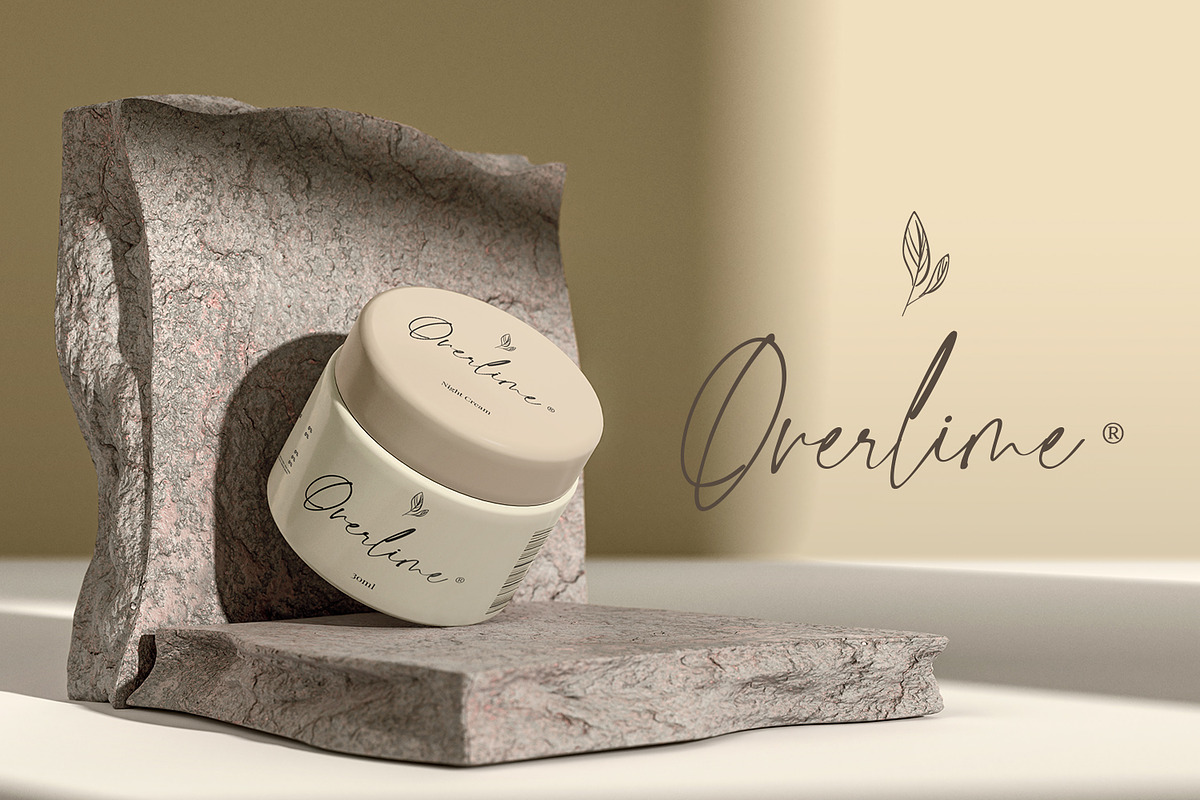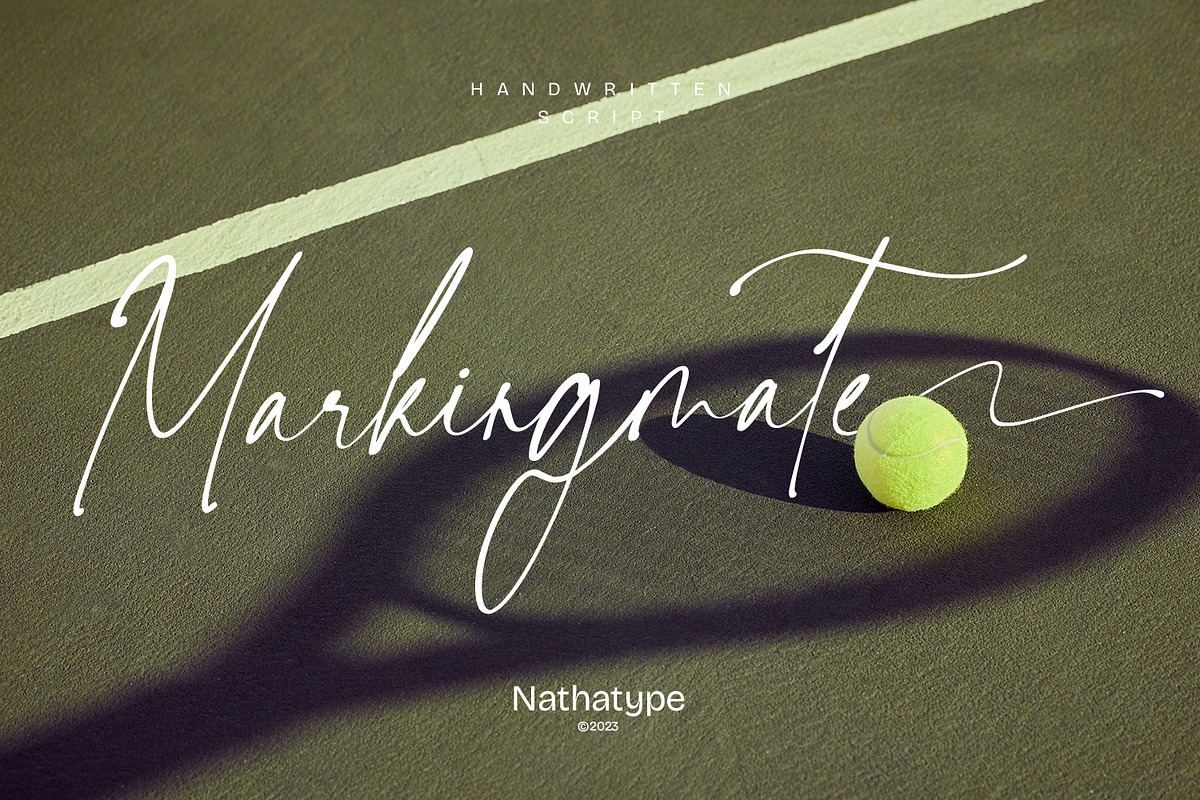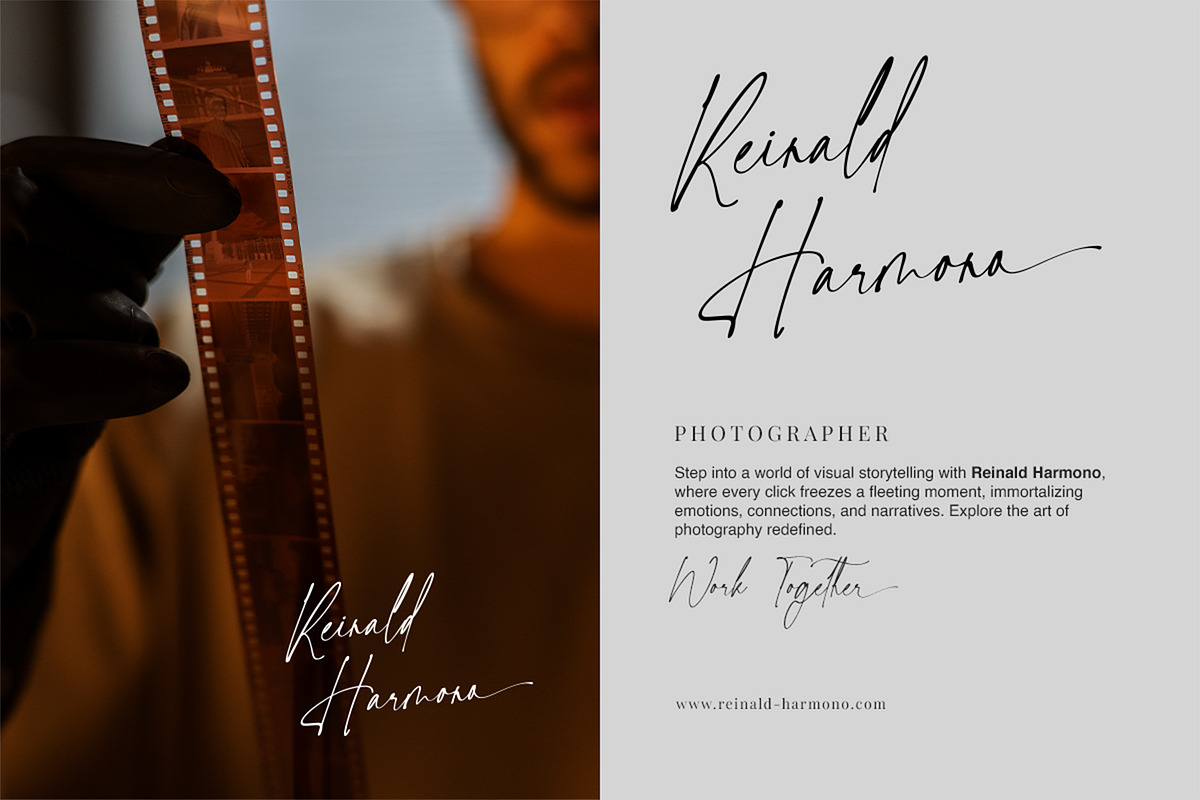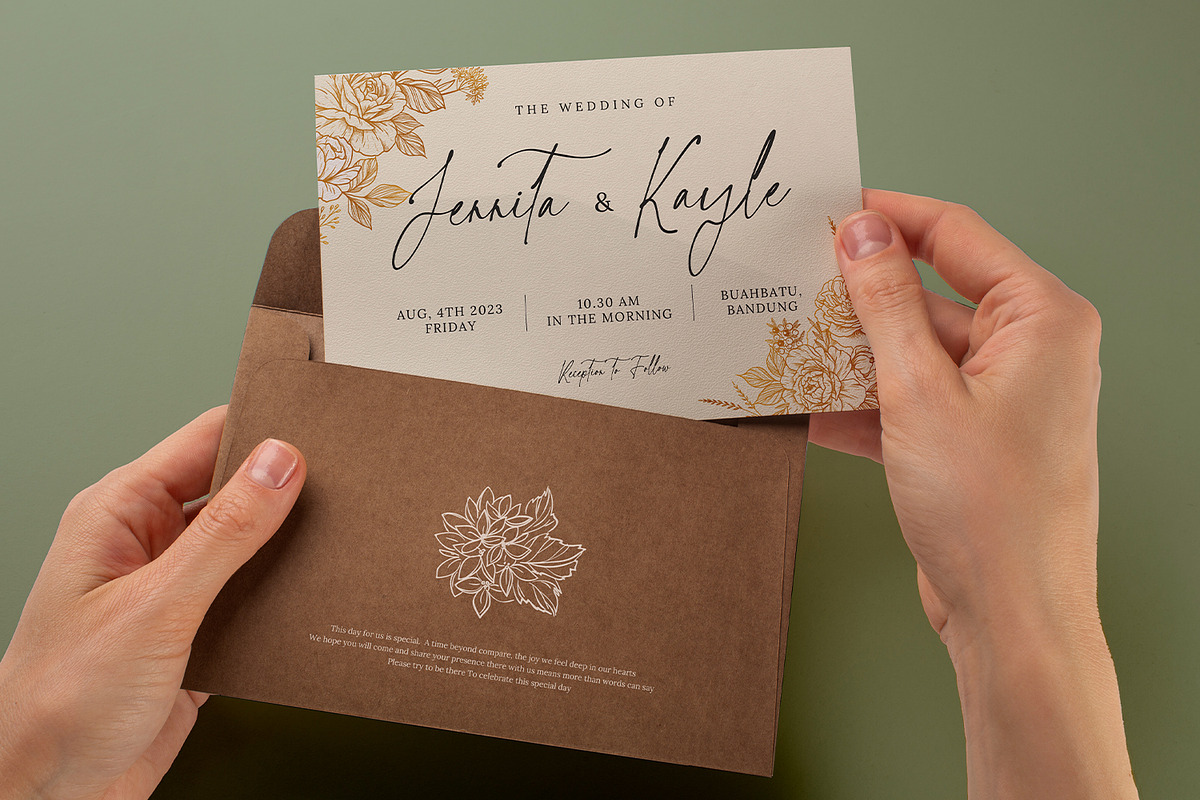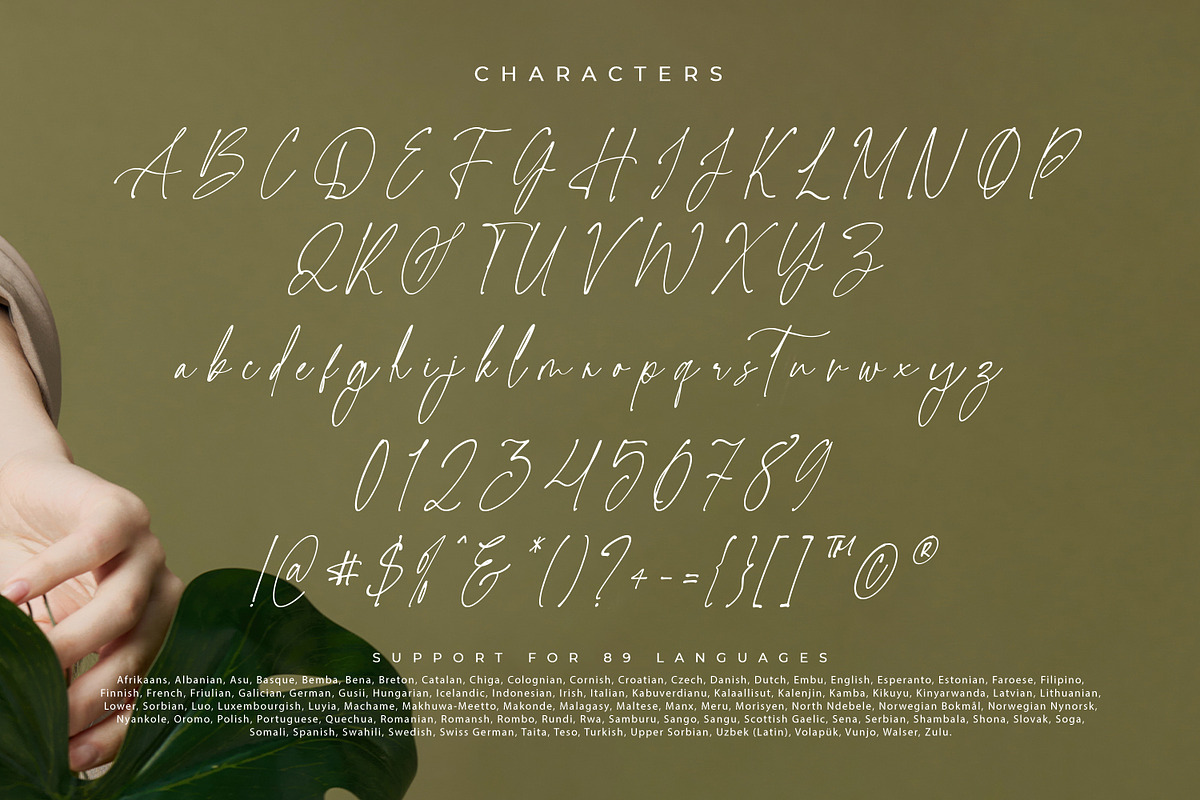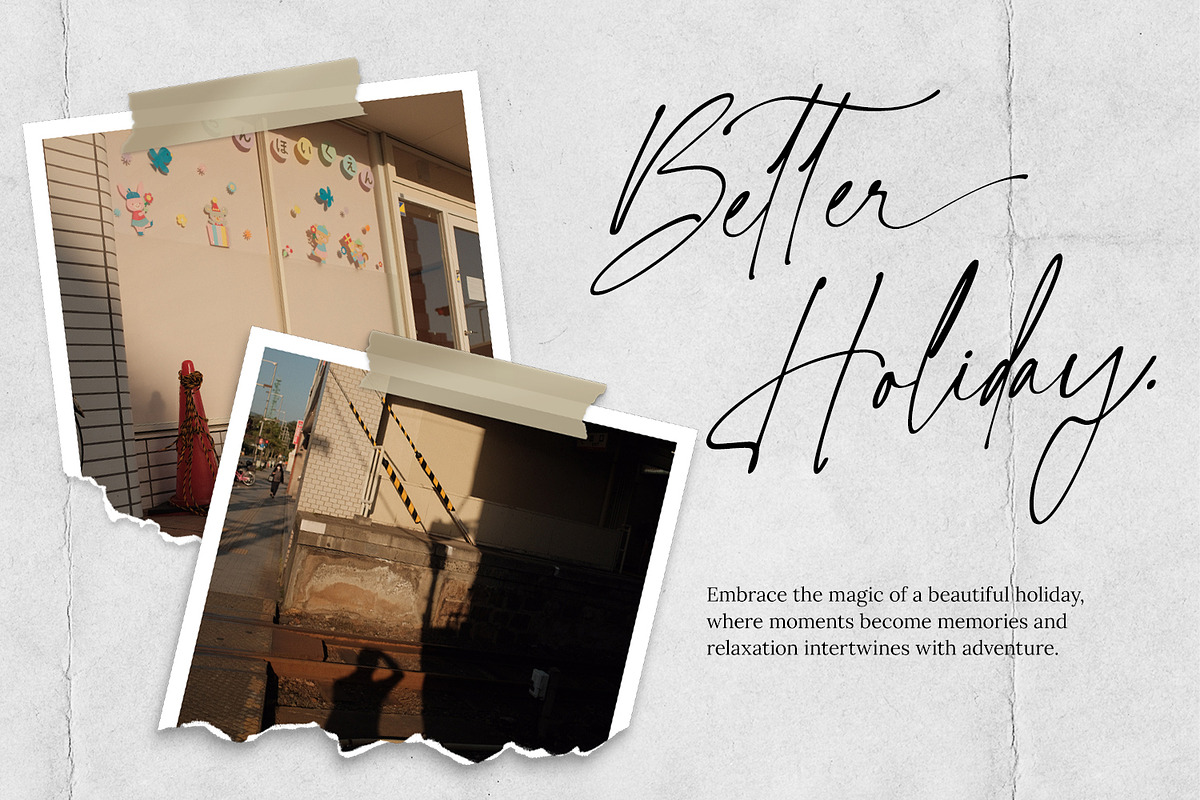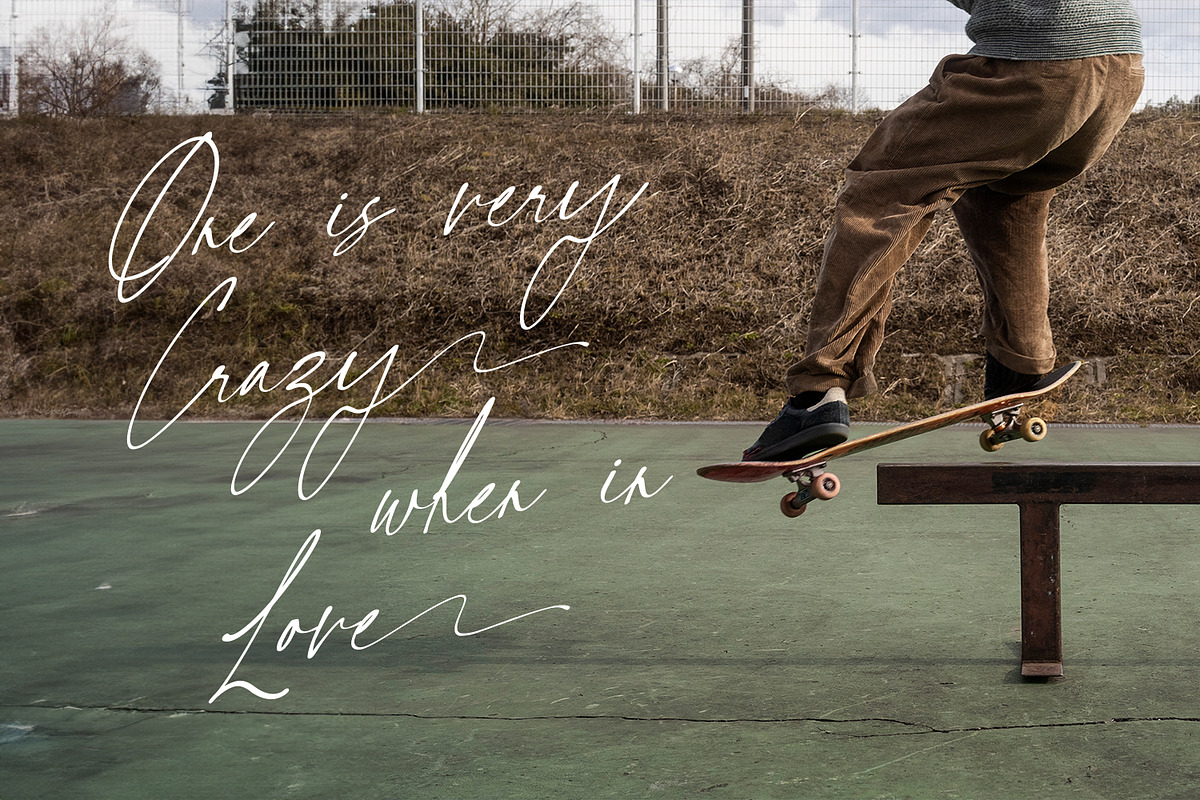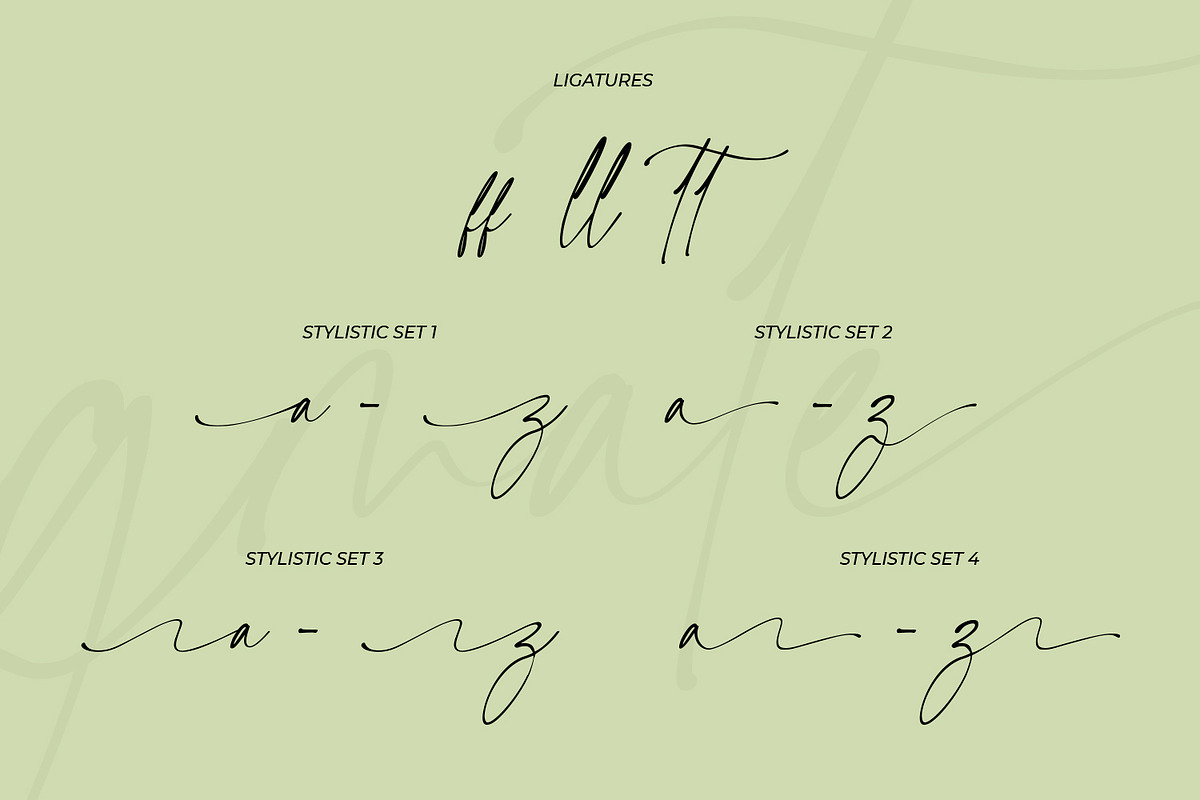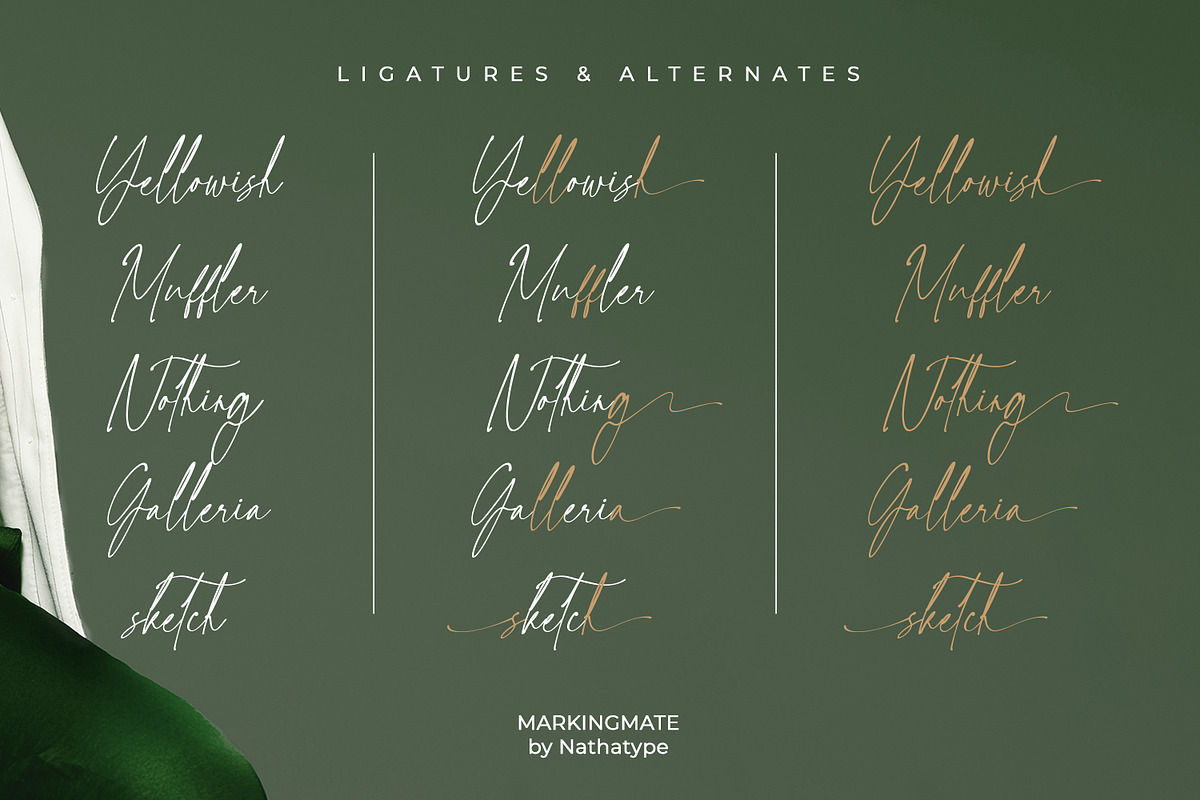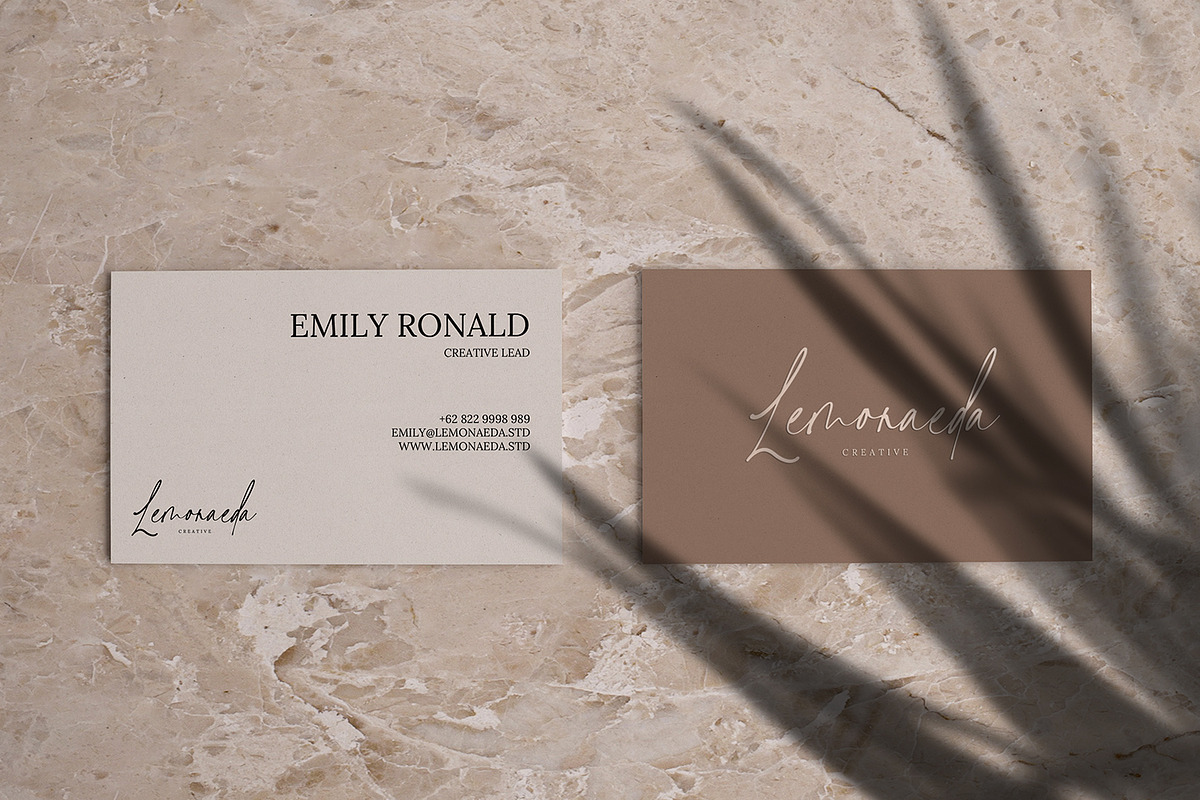
Markingmate
Unveiling the exquisite charm of Markingmate, a script font meticulously crafted to emulate the fluidity of continuous handwriting. With its understated contrasts, Markingmate achieves a delicate equilibrium between sophistication and approachability.
Every stroke is thoughtfully designed to convey the essence of hand-drawn elegance, striking a harmonious balance between fluidity and structure. The font's graceful curves and gentle transitions create an inviting rhythm. What sets Marking Mate apart is its captivating irregularity – the proportions of each letter are thoughtfully varied, resulting in an authentic handwritten quality that evokes a sense of personal touch. For the best legibility use this font in the bigger text sizes. Enjoy the available features here.
Markingmate fits in headlines, logos, posters, flyers, invitations, name cards, branding materials, print media, editorial layouts, and many more. Find out more ways to use this font by taking a look at the font preview.